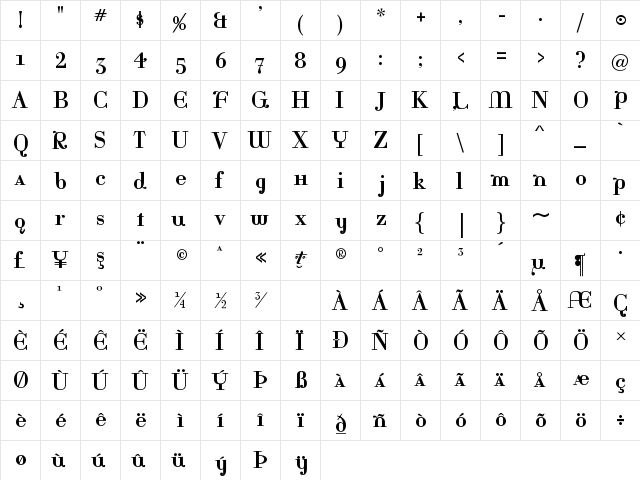
Katrina Regular
Design Context for Katrina Typeface
Katrina is a composed and adaptable typeface that performs quietly and consistently across a wide range of design contexts.